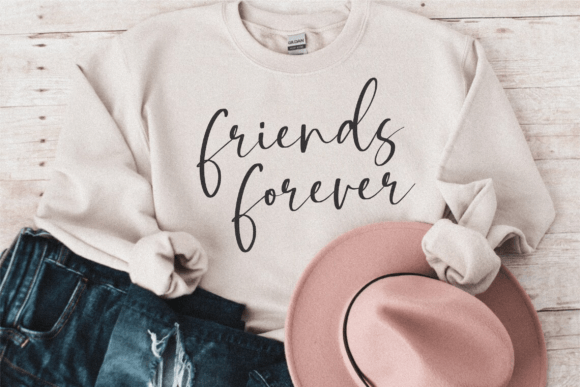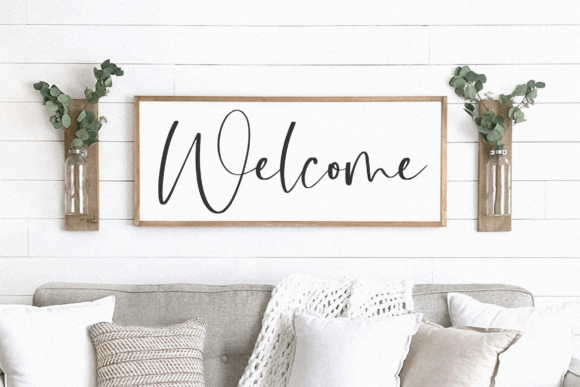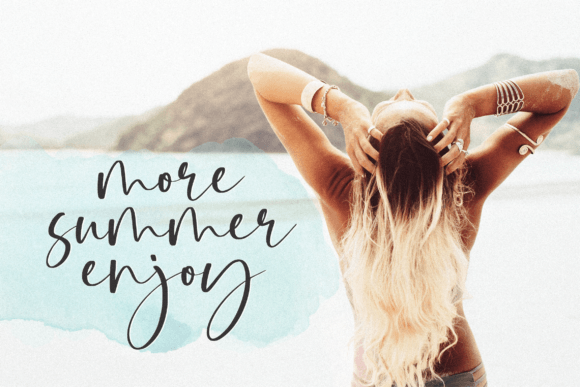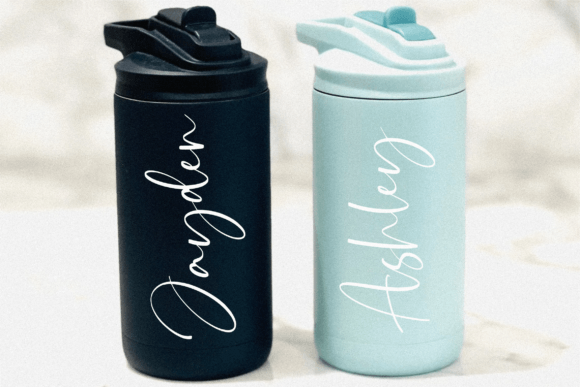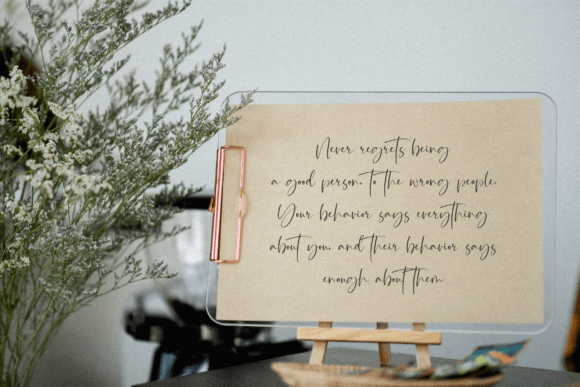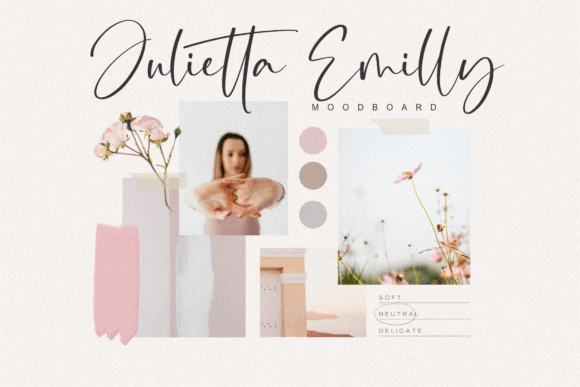
Hefithage Font: Elevate Your Designs with Elegance and Sophistication
In the world of typography, a font can make or break a design. It’s the foundation upon which creativity is built, and the right choice can elevate a project from ordinary to extraordinary. For designers and crafters seeking a font that embodies elegance, sophistication, and versatility, look no further than Hefithage. This dazzling script font is a game-changer, offering a wide range of creative possibilities that can enhance any project.
The Beauty of Hefithage
Hefithage is a meticulously crafted script font that boasts a high level of detail and refinement. Its neat and elegant design makes it perfect for a variety of applications, from luxury branding and advertising to packaging and digital media. The font’s sophisticated appearance is sure to captivate audiences and leave a lasting impression.
Key Features of Hefithage
- Unique and Elegant Design: Hefithage’s script design is both unique and elegant, making it stand out from other fonts in its category.
- Highly Detailed: The font’s high level of detail ensures that it looks great in both digital and print formats.
- Versatile: Hefithage can be used for a wide range of projects, from branding and advertising to packaging and digital media.
- Easy to Read: Despite its elegant design, Hefithage is easy to read, making it perfect for body text and headlines.
Why Choose Hefithage?
With so many fonts available, why choose Hefithage? The answer lies in its versatility and timeless elegance. This font is designed to enhance any creation, whether you’re working on a luxury brand, a digital product, or a craft project. Its unique design ensures that your work will stand out from the crowd, while its high level of detail guarantees that it will look great in any format.
Hefithage is a font that will appeal to both designers and crafters. Its elegant design and versatility make it perfect for a wide range of projects, from professional designs to personal crafts. Whether you’re creating a logo, a brochure, or a handmade card, Hefithage is a great choice.
Tips for Using Hefithage
To get the most out of Hefithage, here are a few tips:
- Use it as a Headline Font: Hefithage’s elegant design makes it perfect for headlines and titles.
- Pair it with a Sans-Serif Font: For body text, pair Hefithage with a sans-serif font to create a nice contrast.
- Experiment with Colors: Hefithage looks great in a variety of colors, so don’t be afraid to experiment and find the perfect shade for your project.
In conclusion, Hefithage is a stunning script font that offers a unique combination of elegance, sophistication, and versatility. Whether you’re a designer or a crafter, this font is sure to become a valuable addition to your font library. With its highly detailed design and easy-to-read style, Hefithage is perfect for a wide range of projects. So why wait? Download Hefithage today and elevate your designs to new heights.